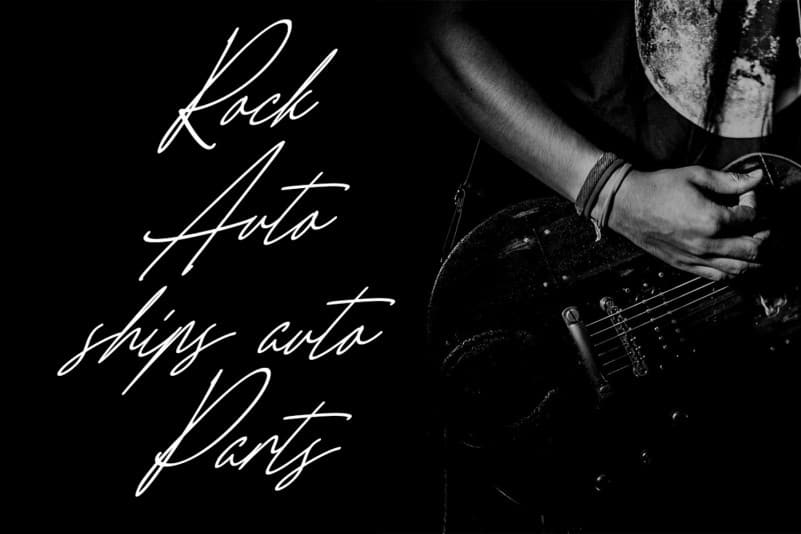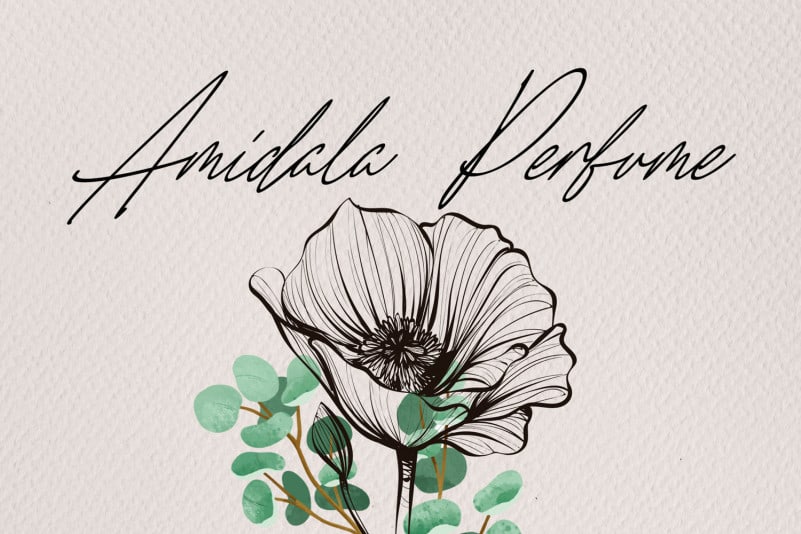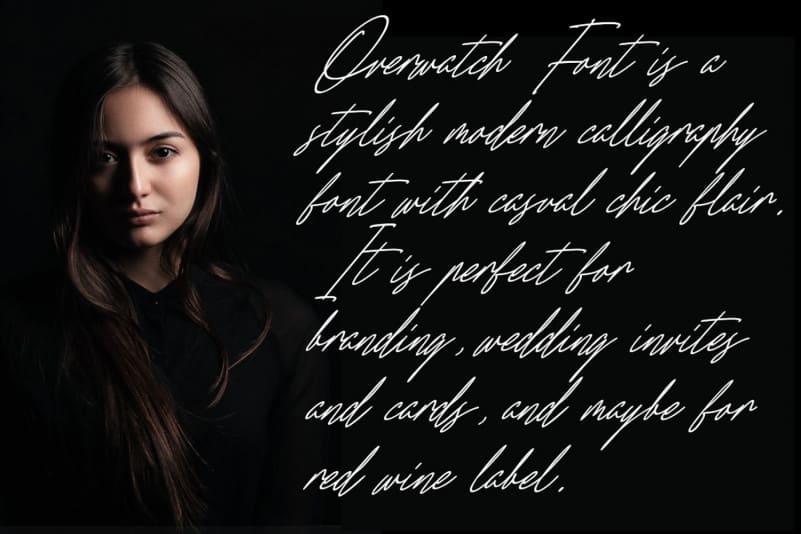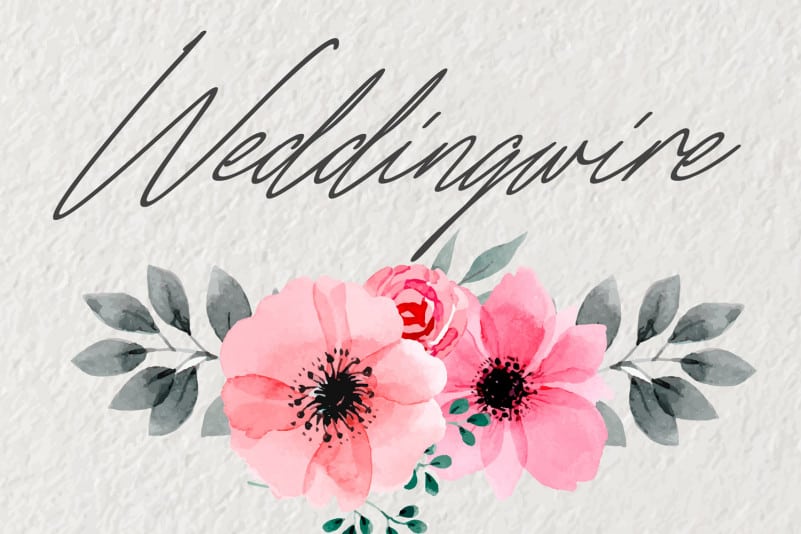
Overwatch Signature Font
Overwatch Signature Font is a hand drawn monoline signature script with casual chic flair. It is perfect for branding, wedding invites and cards, and maybe for red wine label.